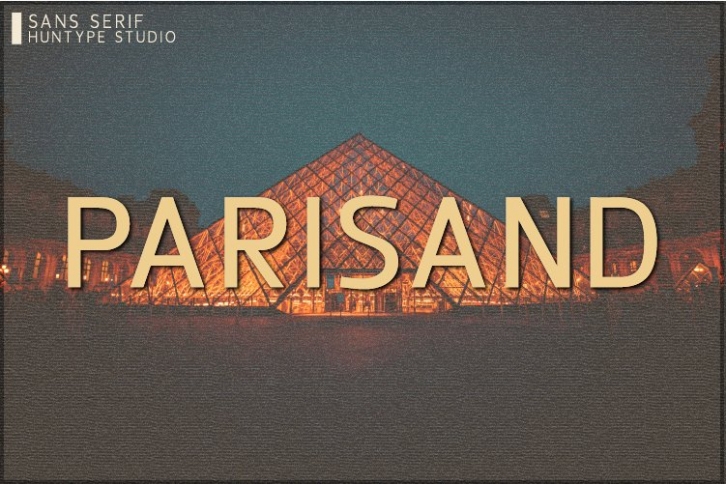
Parisand is a trendy and unique font with an authentic style. It was designed by Huntypestudio and it's a great choice for creative people who need such a font. It was released on October 4, 2022 and the file size is 6.68 MB. Parisand will add an organic vibe to any design idea!